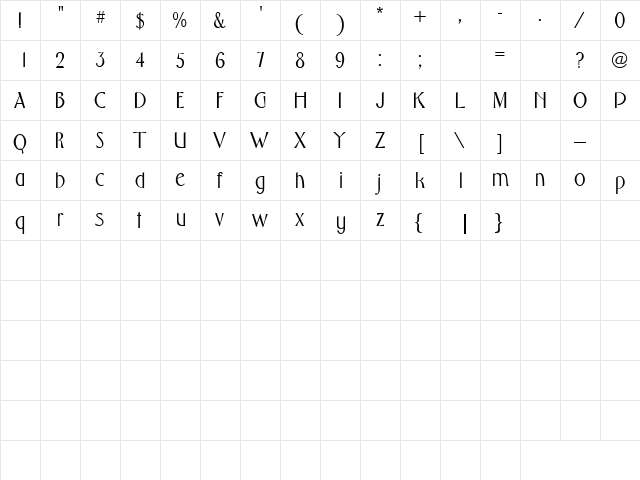
AL EveningStroll Regular Font Preview
AL EveningStroll Regular
Design Context for AL EveningStroll Typeface
AL EveningStroll is a composed and adaptable typeface that performs quietly and consistently across a wide range of design contexts.